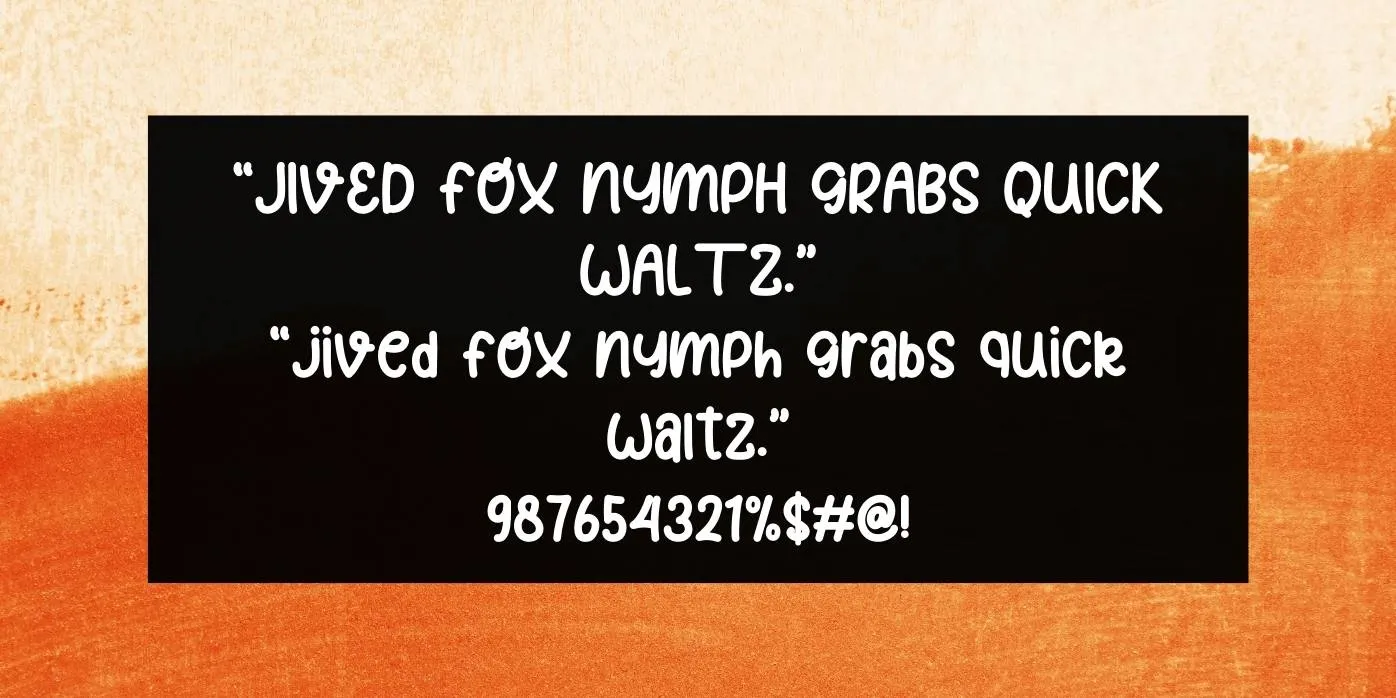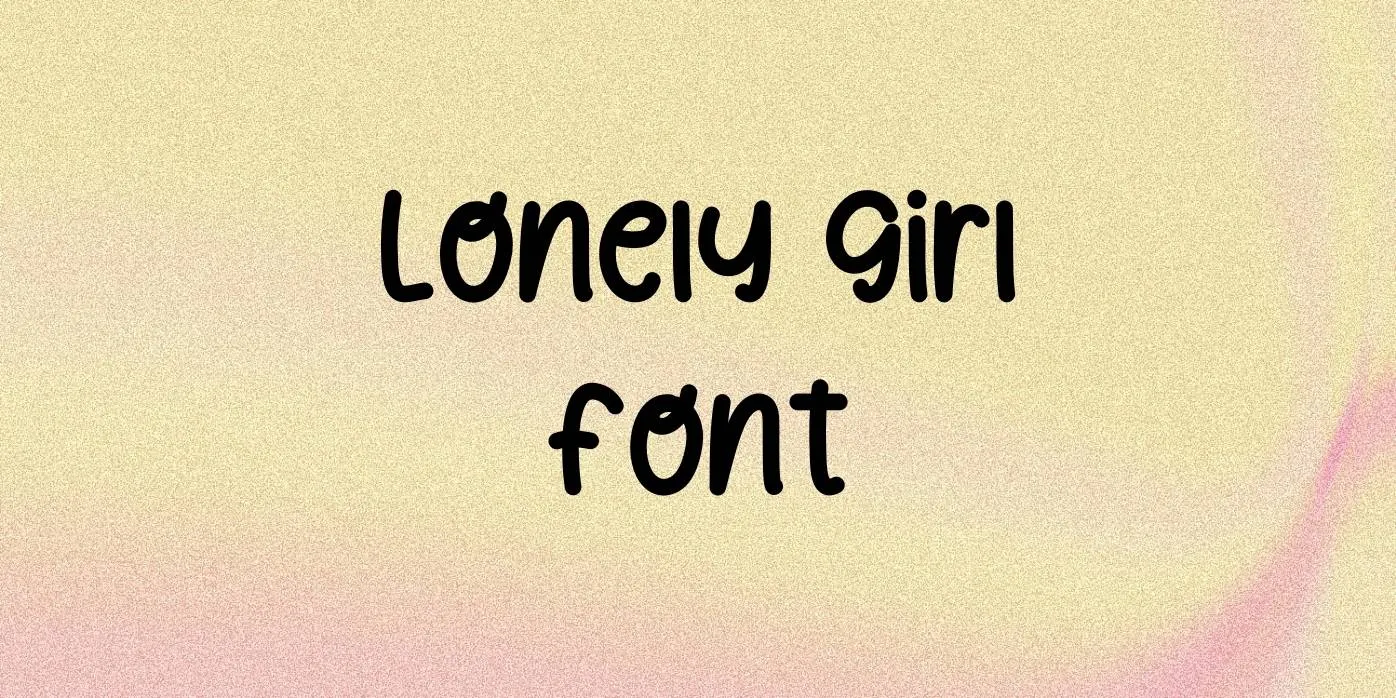
Lonely Girl Font
The Lonely Girl Font is a fancy font that was created by Prio Nurokhim Aji. The glyph of this typeface is very simple and has a very limited number of characters. There are no ligatures or kerning pairs. The Font was created to communicate the feeling of loneliness.
The font is intended to be used by people who are feeling lonely. The font was created by an anonymous person. It is quite similar to the commando font and it has a pairing personality with that, so you can combine them and make something crazy stuff. The font includes glyphs for numbers, punctuation, and common symbols.